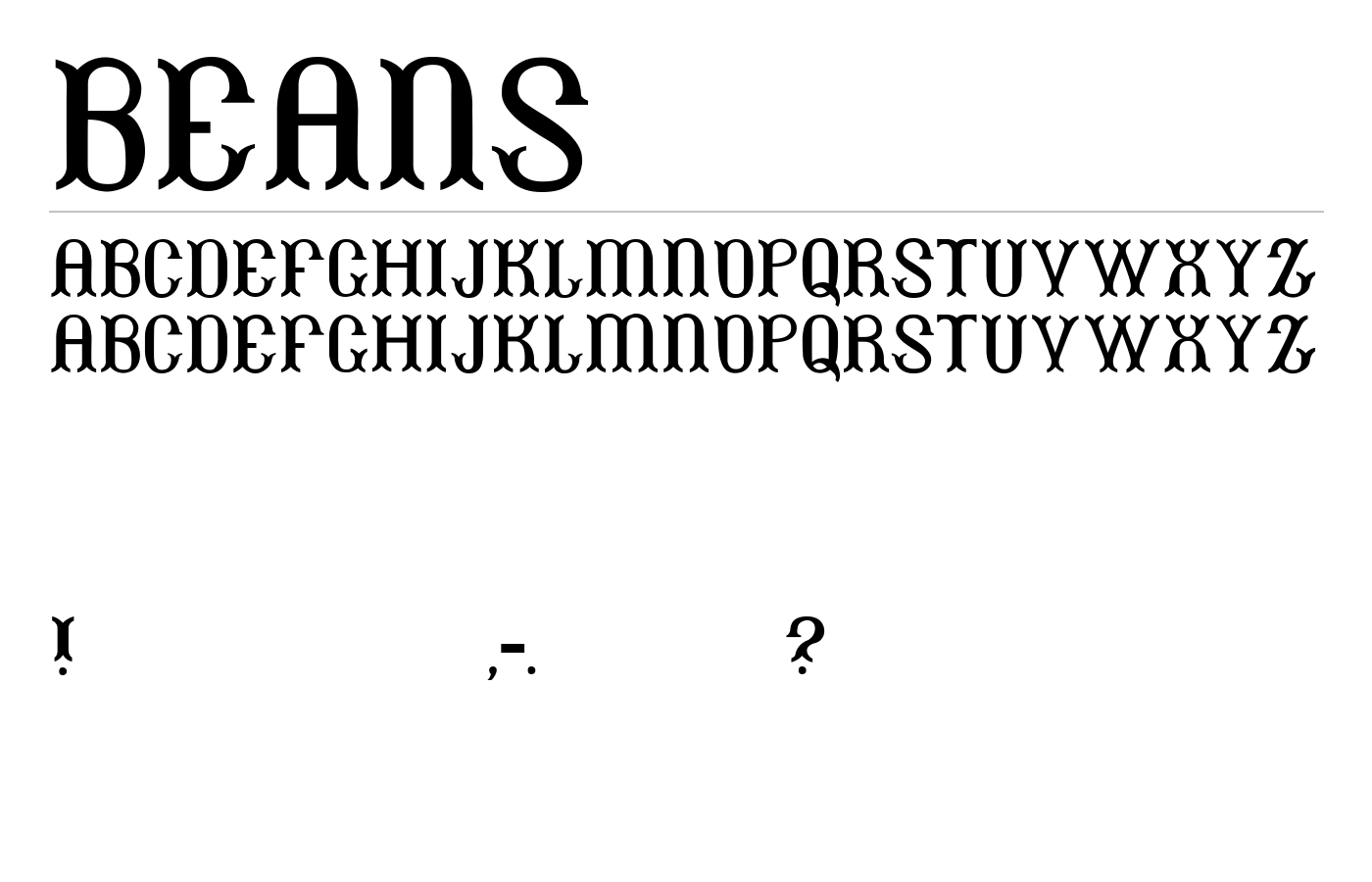
Beans Font is a bold, condensed serif typeface with a unique vintage flair, featuring sharp, bracketed serifs and distinctively stylized letterforms that combine elegance with a quirky charm. Its tall, tightly spaced characters and intricate curves make it ideal for eye-catching headlines and branding that seeks to convey personality and a touch of retro sophistication. This font works particularly well in packaging, posters, and logos where strong visual impact and character are essential.
Beans Font